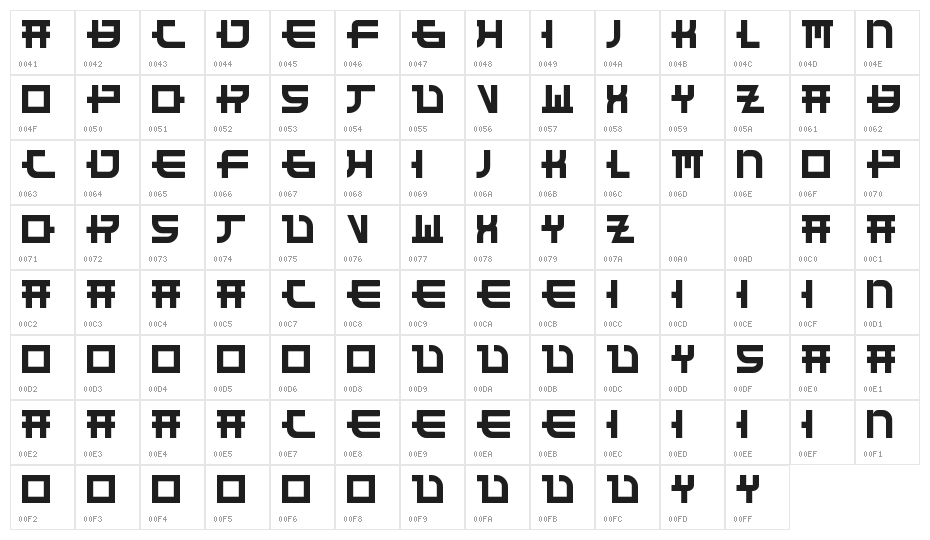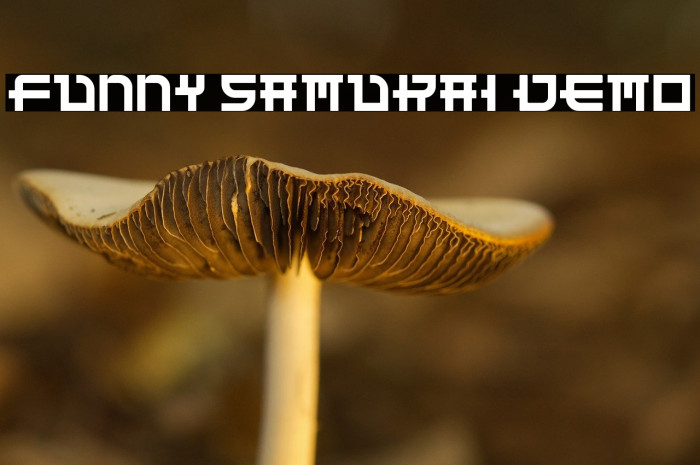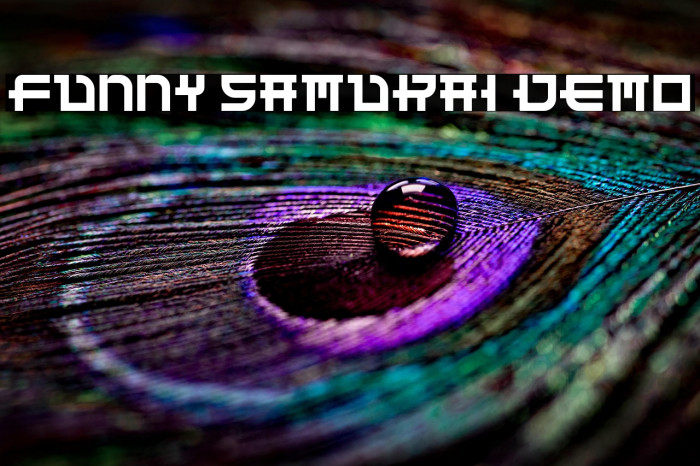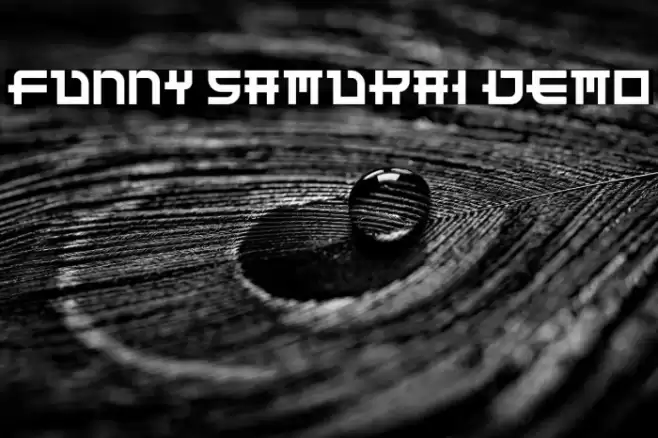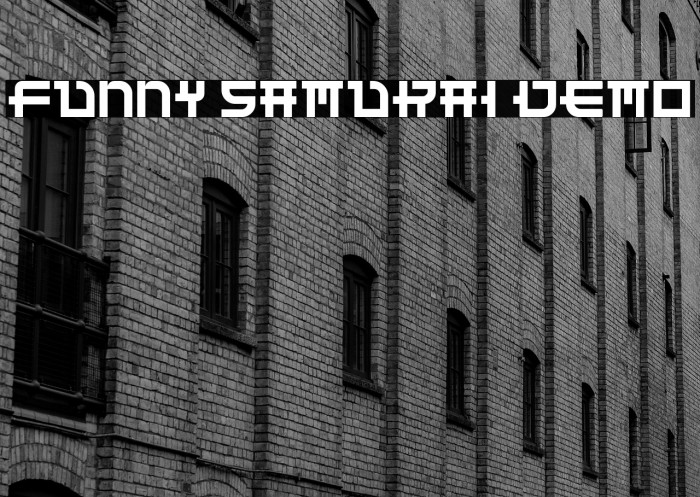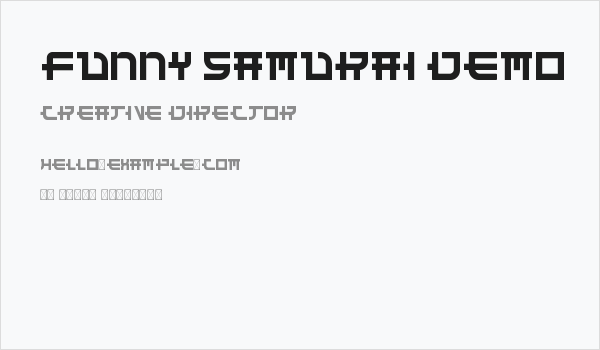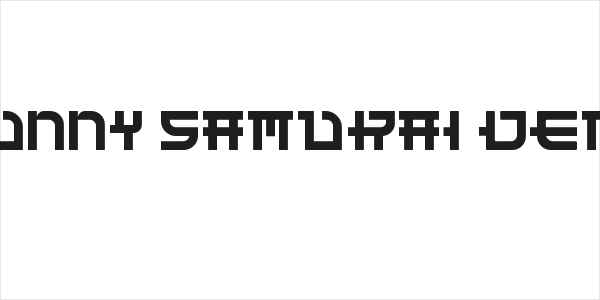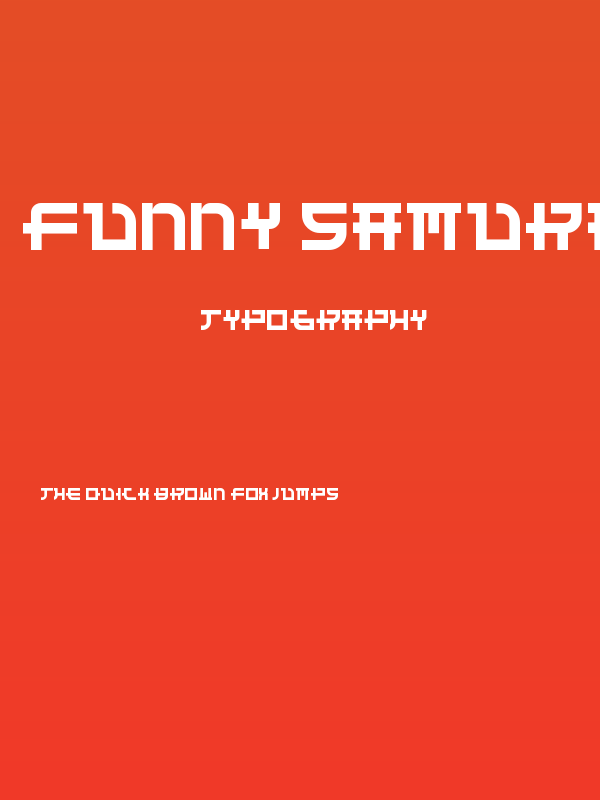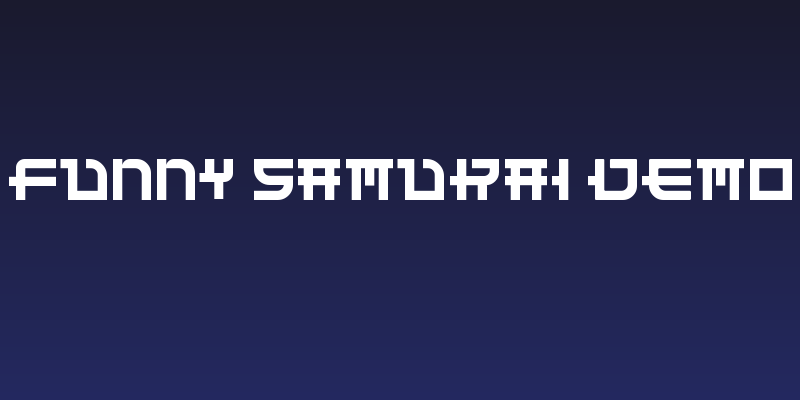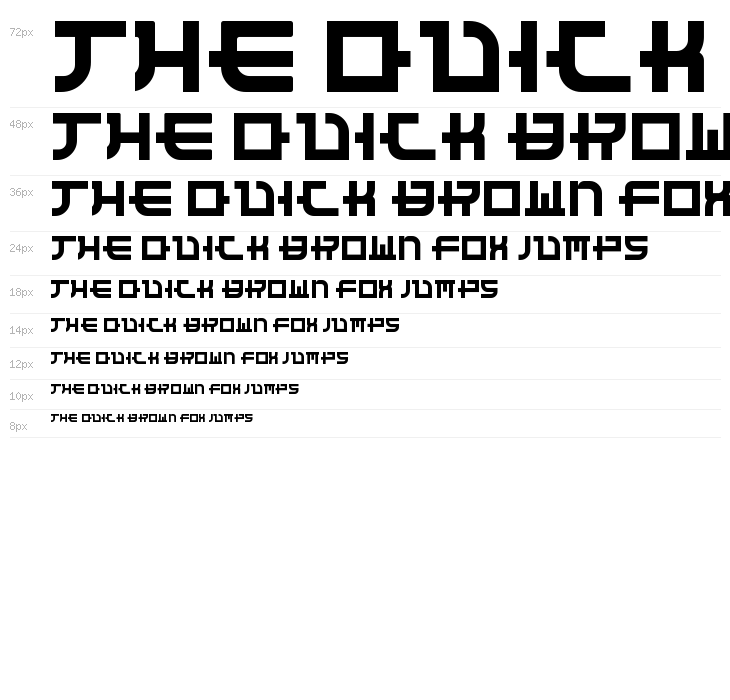
Funny Samurai Demo Font
Funny Samurai Demo Description
This font features a bold and geometric design with a distinctively modern and futuristic aesthetic. The characters are constructed with sharp angles and straight lines, giving them a mechanical and structured appearance. The uppercase letters are particularly striking, with a uniform height and width that create a cohesive look across the alphabet. The font's unique style is reminiscent of digital or sci-fi themes, making it ideal for projects that require a strong visual impact. The absence of curves and the emphasis on angular shapes contribute to its distinctive and memorable character.
| Proposed Projects | Ideal for sci-fi themed designs, video game titles, technology branding, and futuristic posters. |